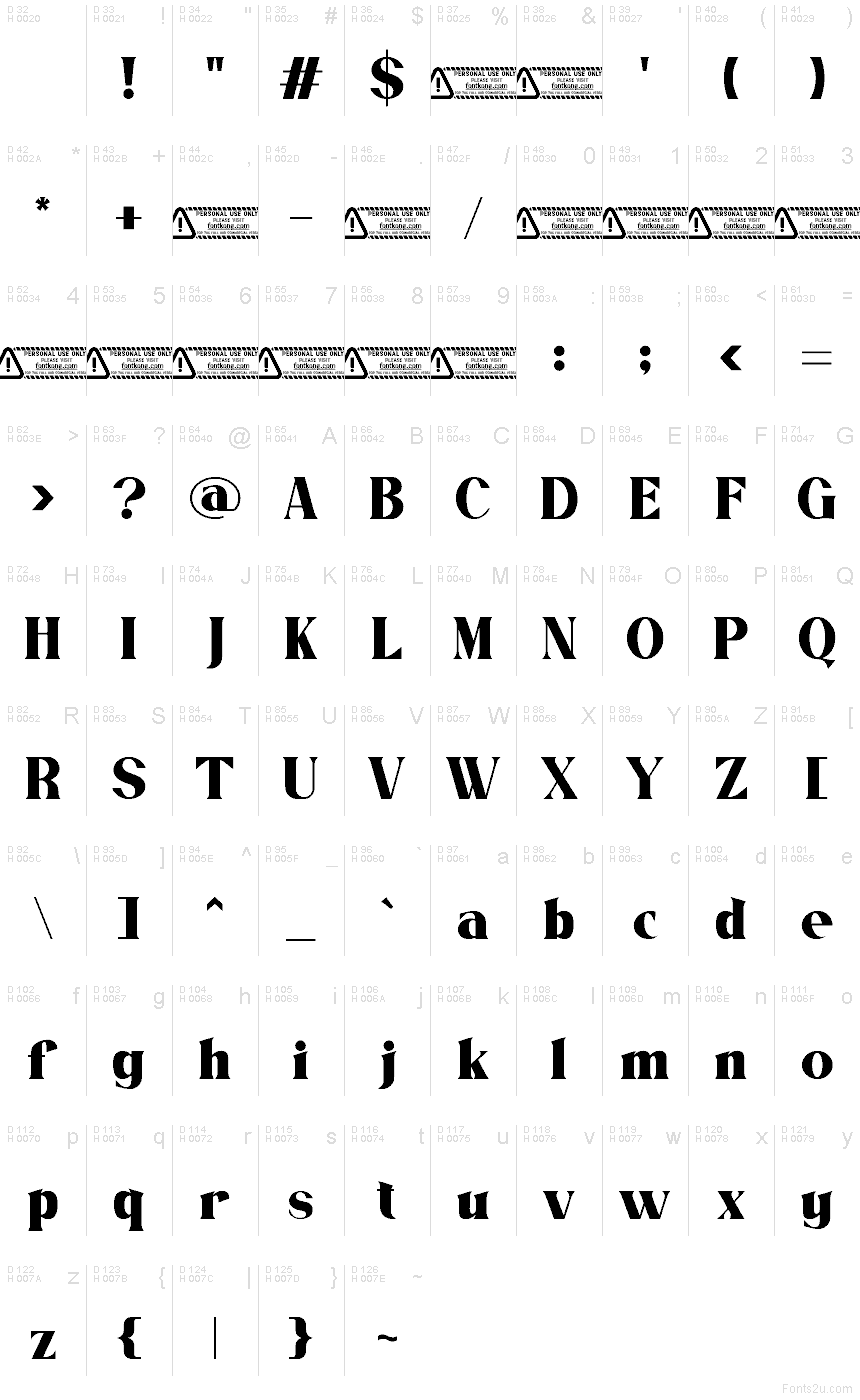
Bougenville font is a bold serif font designed by Kong Font, where elegance meets sophistication. Its strong presence and refined aesthetics give it a classical touch, making it perfect for designs that demand attention. With its timeless appeal, this typeface beautifully balances strength and delicacy.
This free font can be used in magazine designs, branding projects, posters, logos, packaging designs and more. Website headers/banners are other possible fields of application for this lovely typeface!